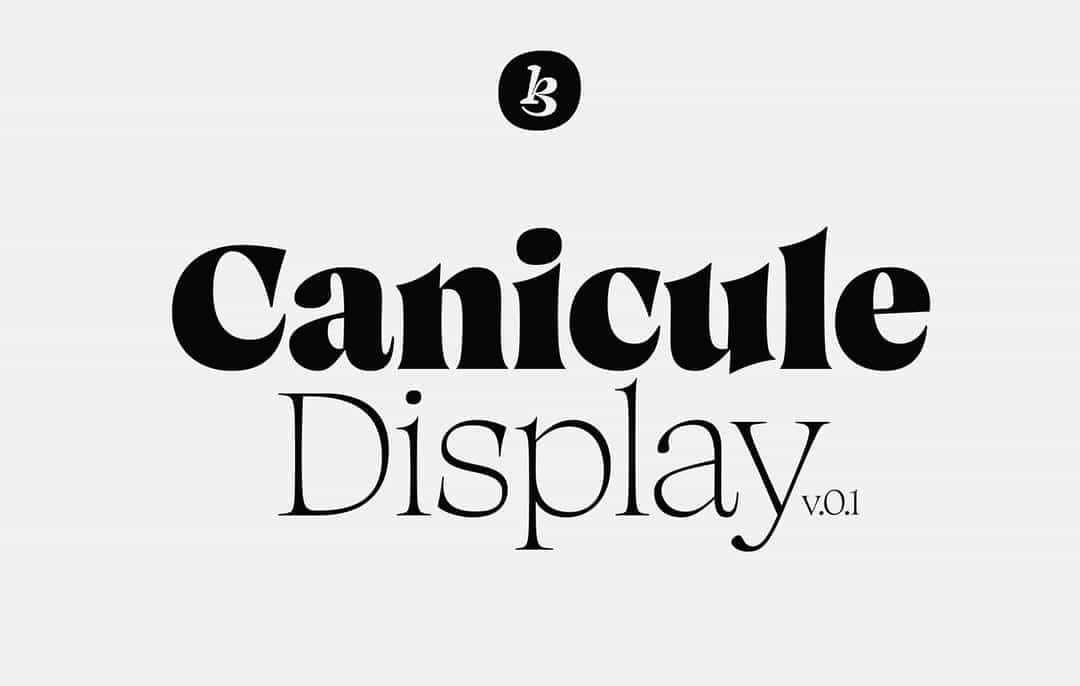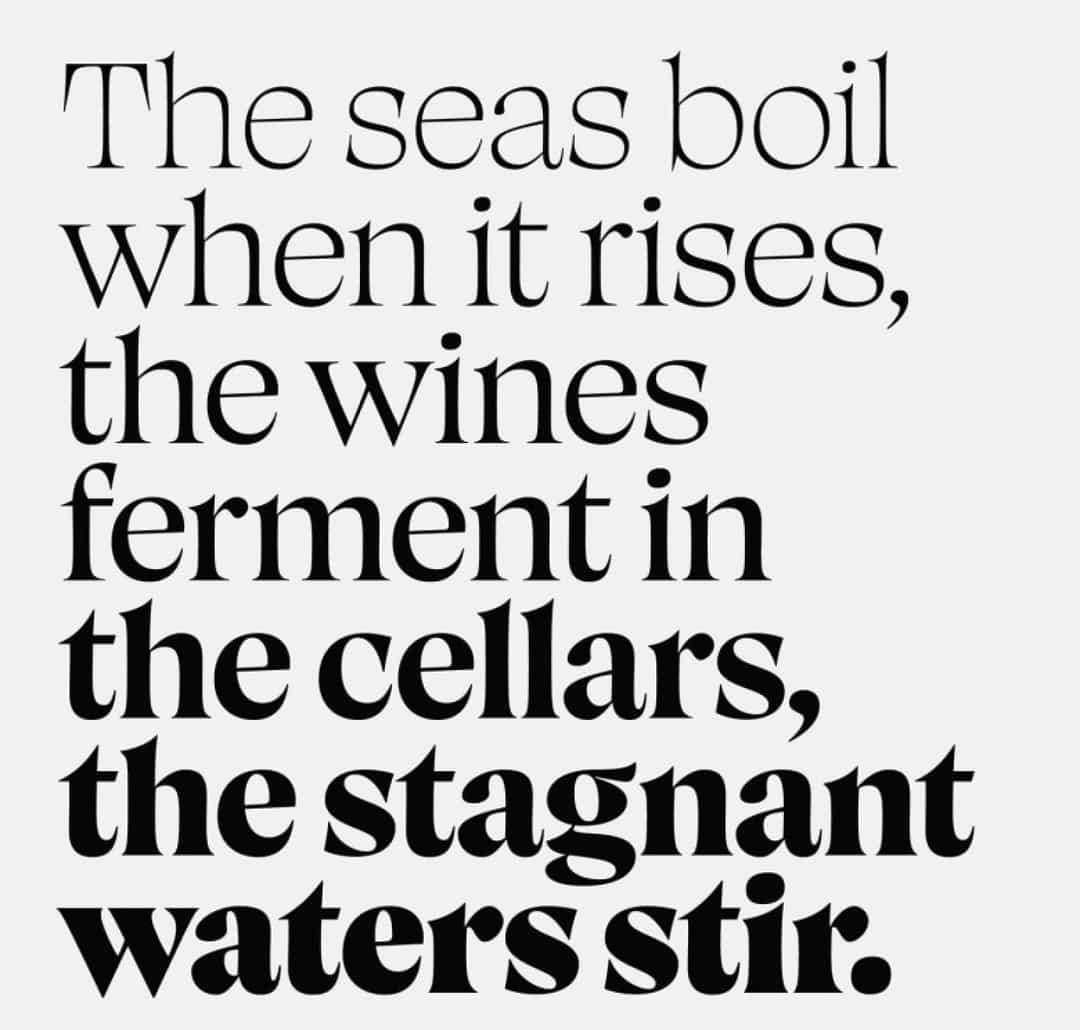
Canicule is an elegant display-serif typeface that’s flexible, modern and offers endless opportunities for artistic use. Its organic look recalls pen strokes while its light weight serifs gradually turn into glyphs when weight increases.